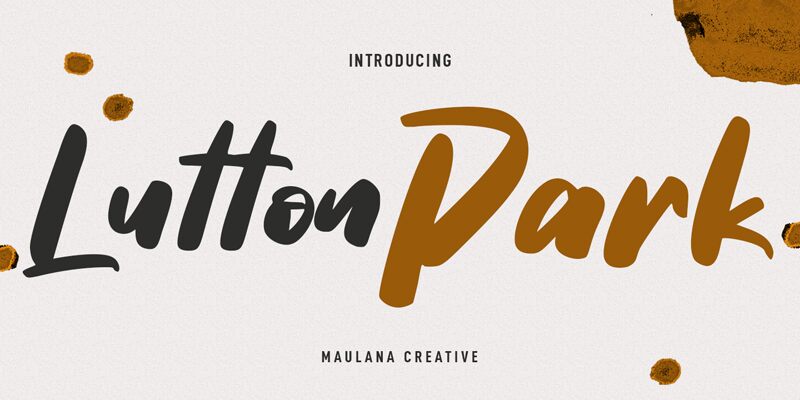
Lutton Park Free Regular
Lutton Park, a mesmerizing creation by Maulana Creative, is a bold and smooth brush font that seamlessly blends elegance with creativity. With its striking strokes and impeccable curves, this font adds a touch of sophistication to any project. Ideal for luxury branding and product packaging, Lutton Park captivates attention on invitations and event posters. Its versatility shines through on editorial designs, showcasing headlines with an artistic flair. This font's boldness makes it perfect for impactful logos and eye-catching signage. Elevate your designs with Lutton Park's enchanting charm and leave a lasting impression on your audience.